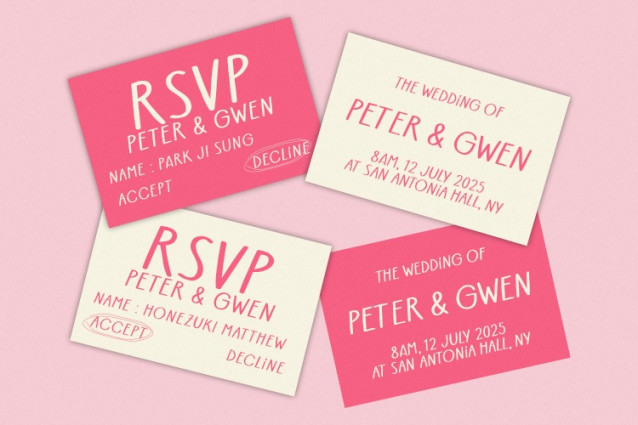
ZRTW Loverynote Font
ZRTW Loverynote Font is a romantic handwritten font with a soft and elegant style, perfect for love letters, social media quotes, and feminine branding. Its flowing, slightly slanted characters bring charm and warmth to any design, whether it’s wedding invitations, gift tags, or personal journals. With Loverynote, you can express any emotion effortlessly in a clean, minimal, and beautifully human way with more feminime, soft, and also romantic look.